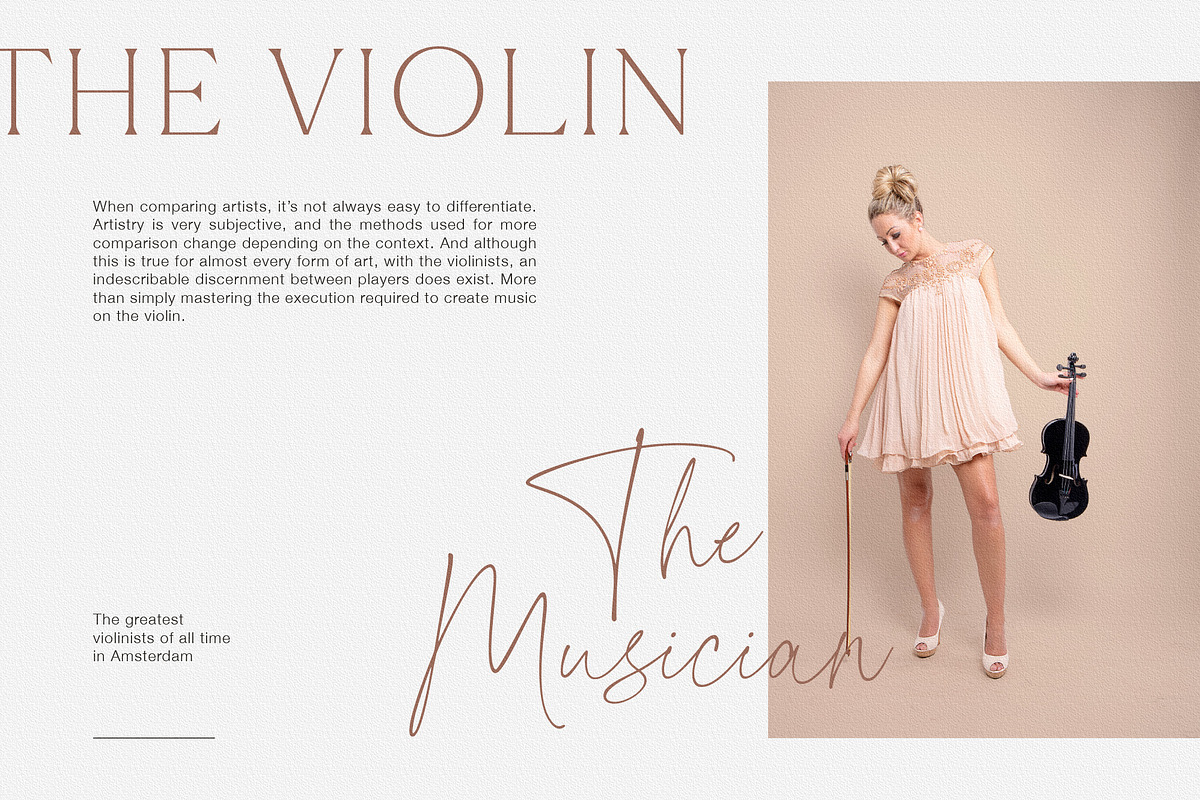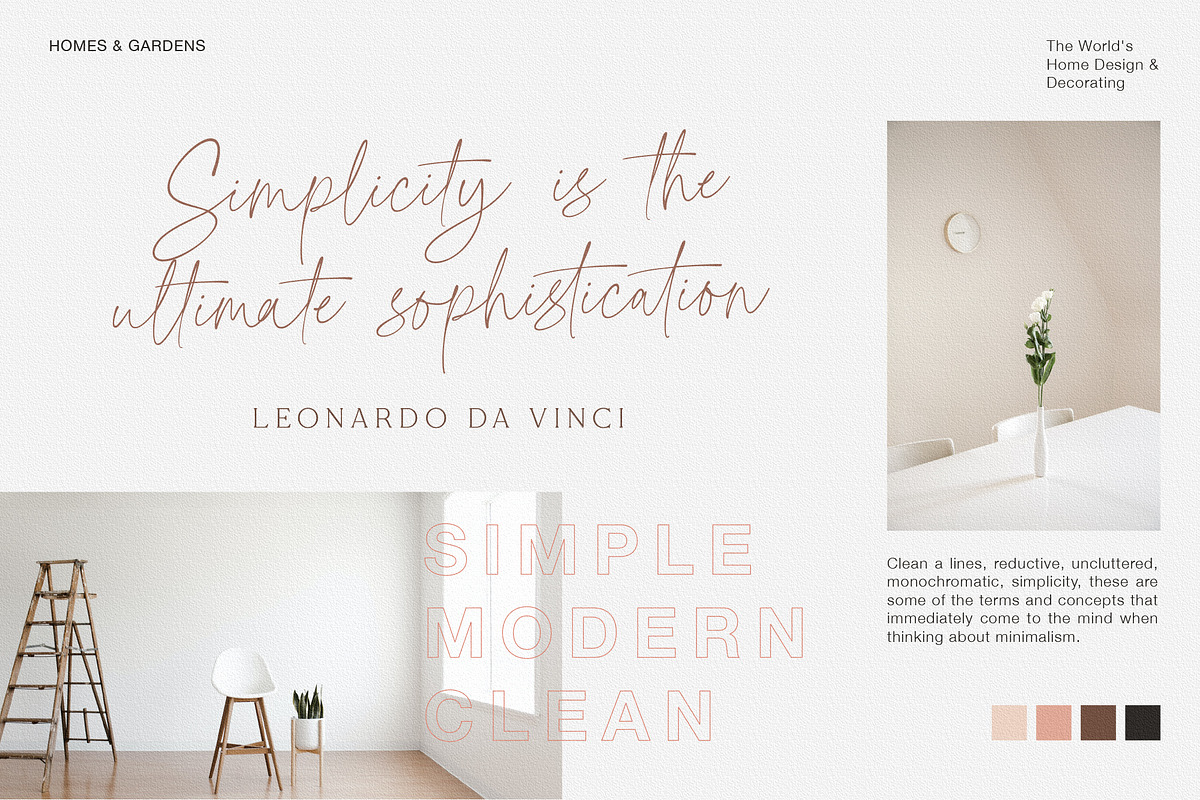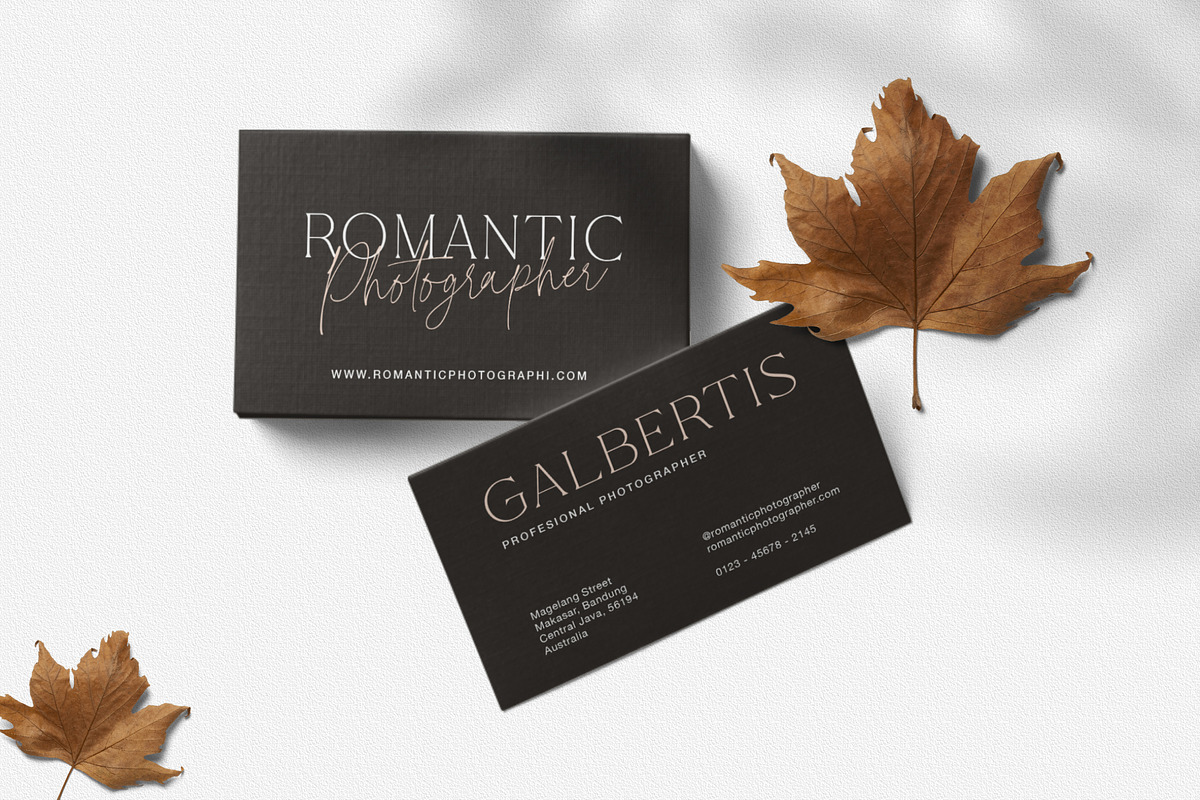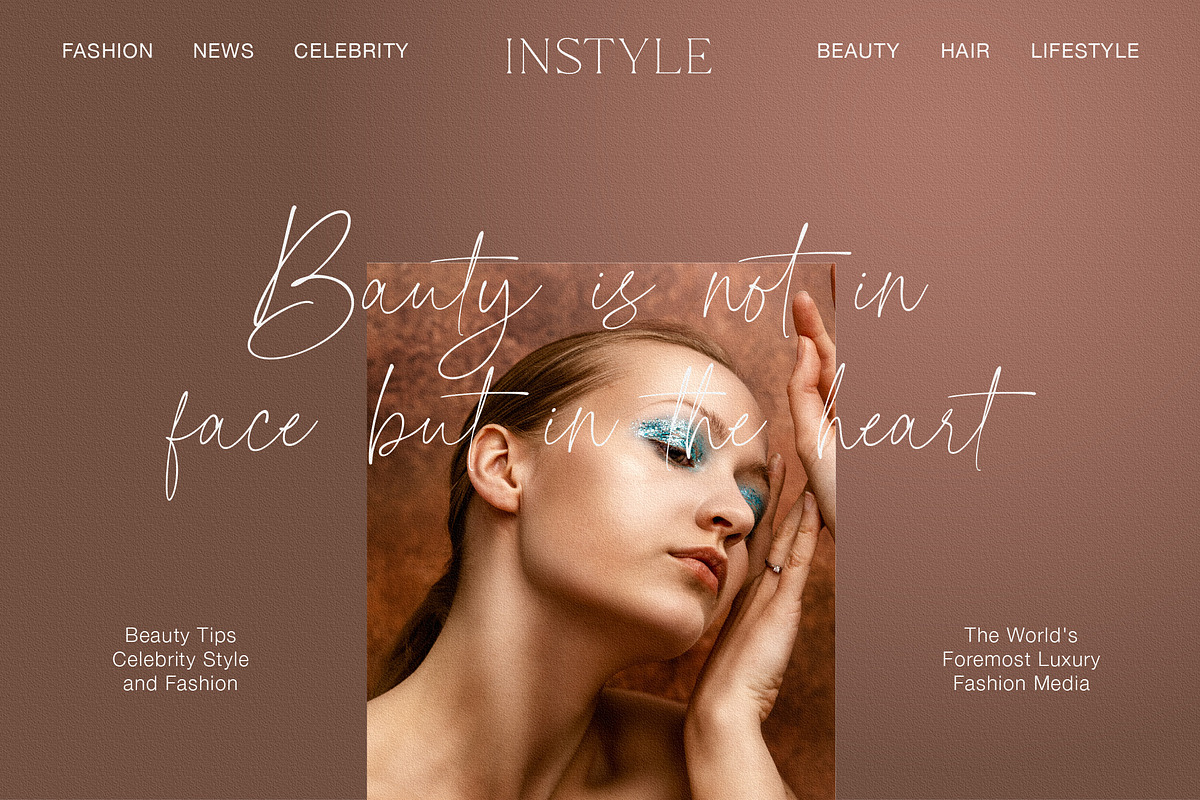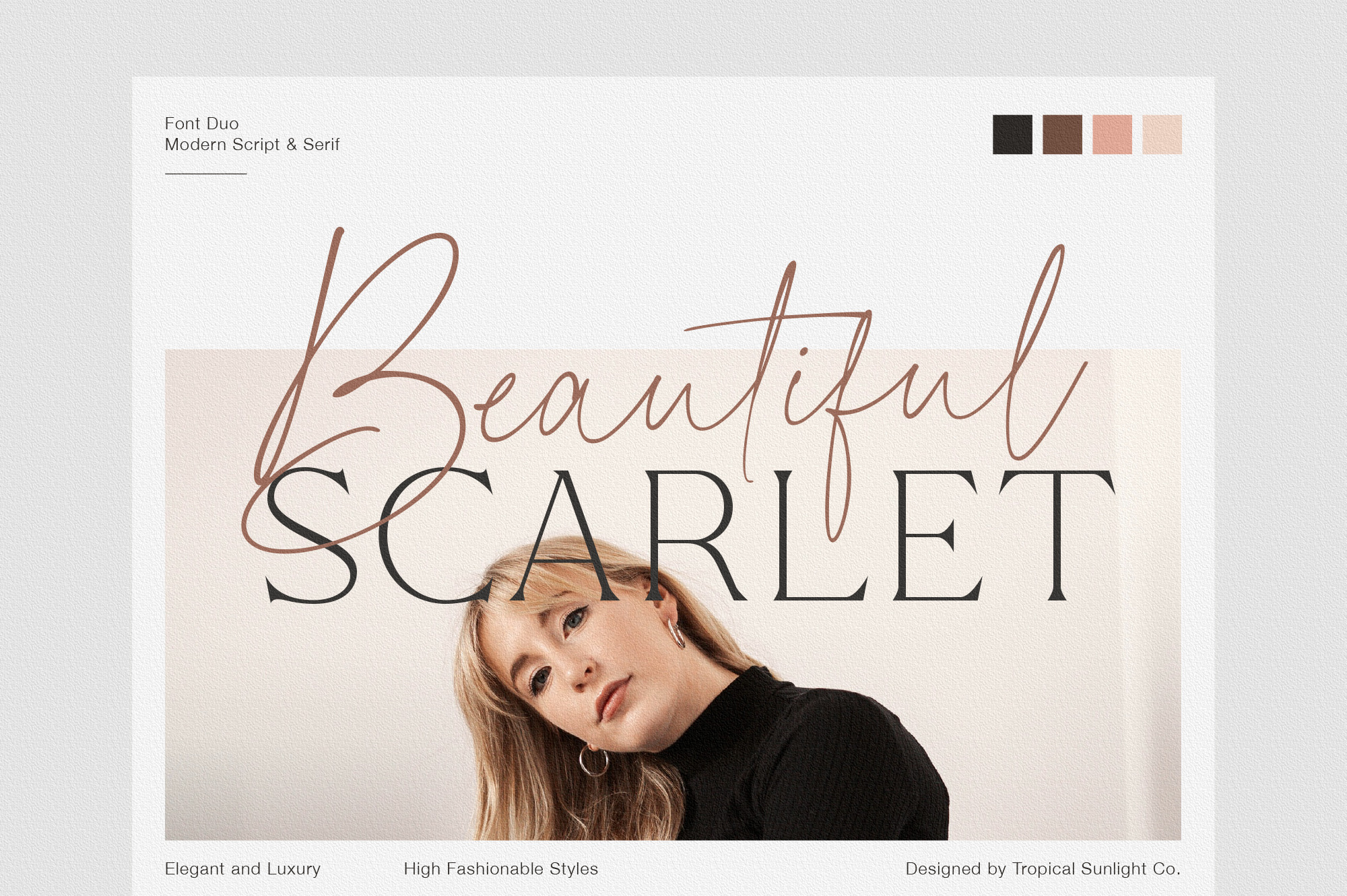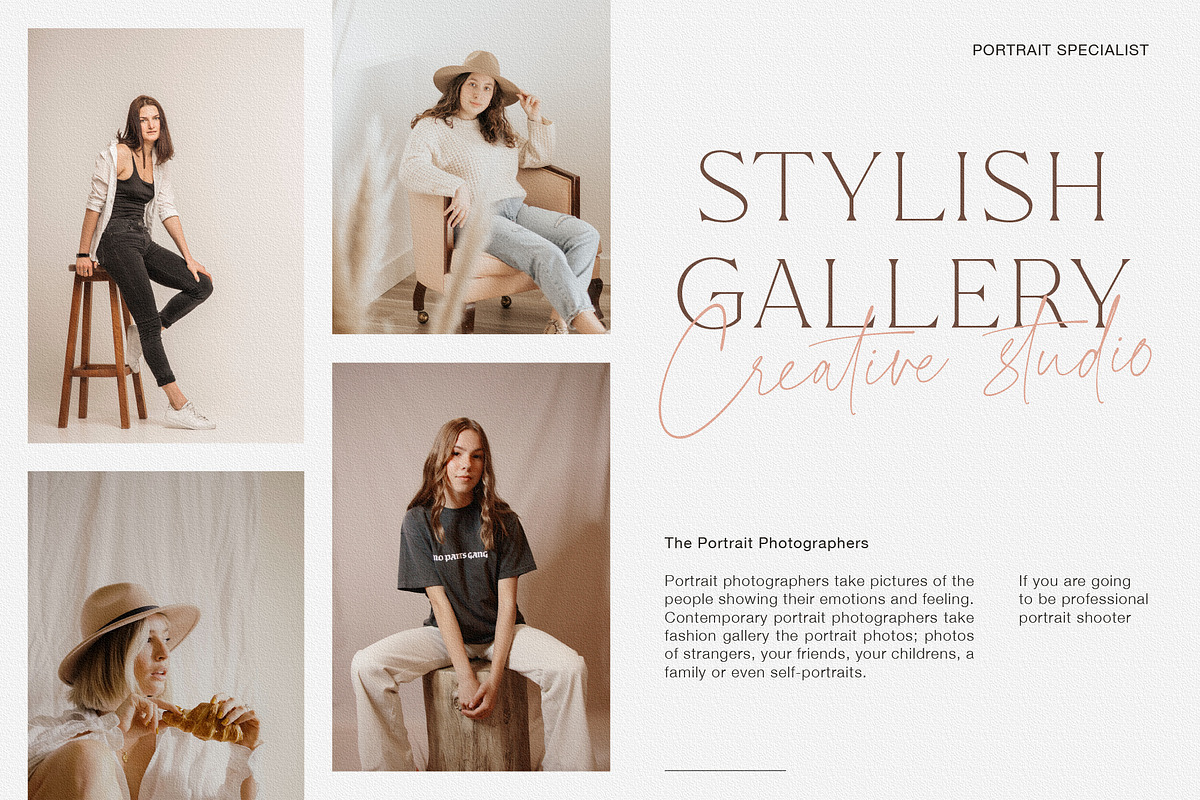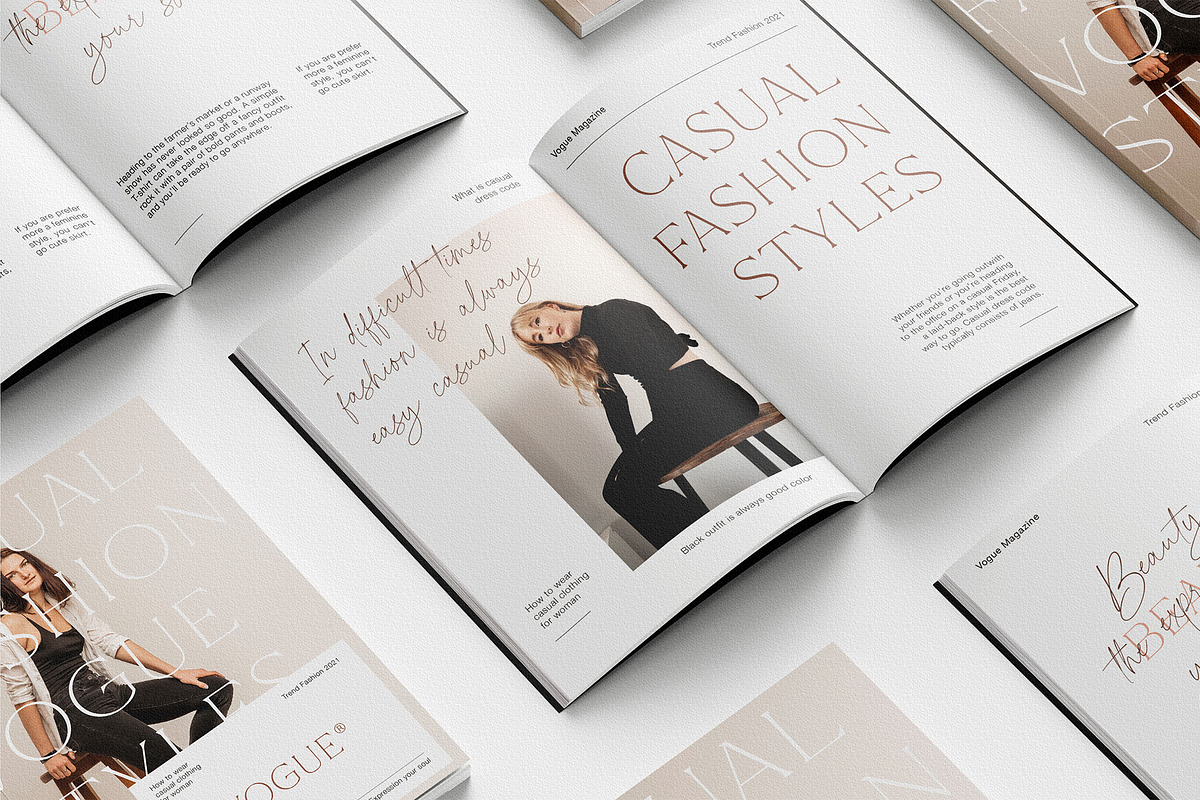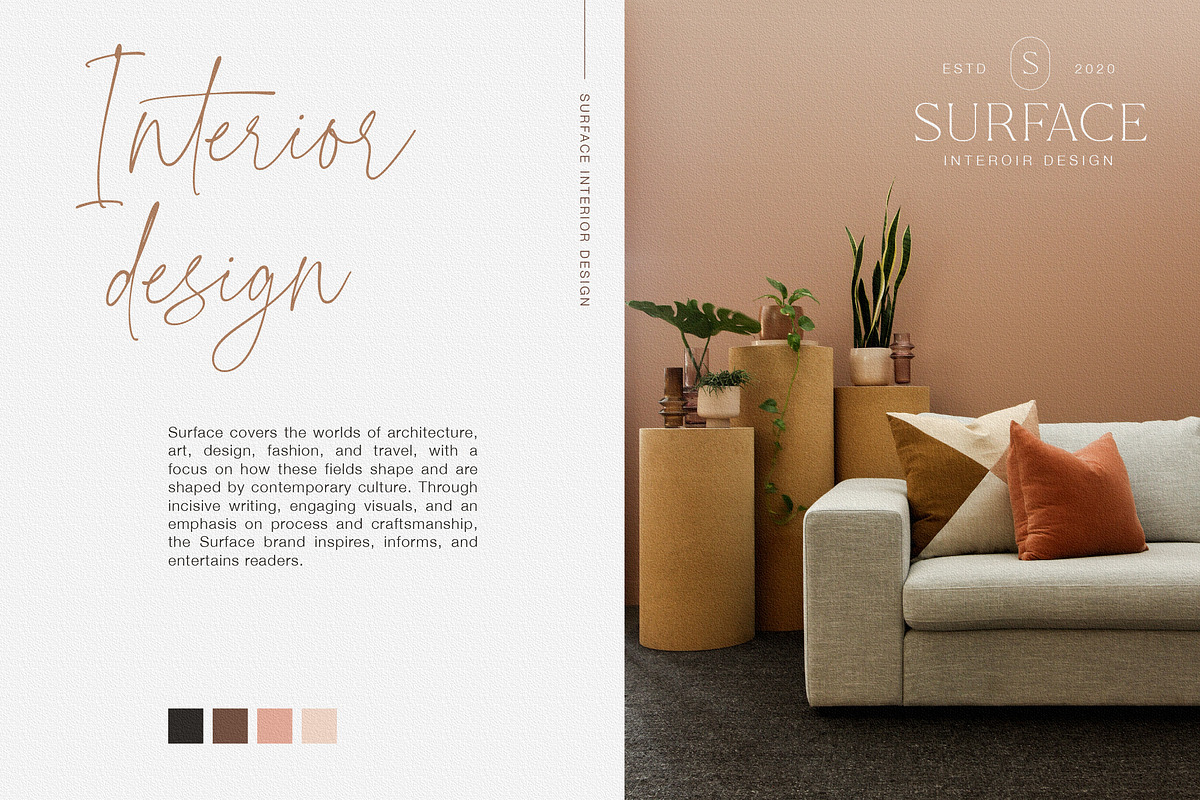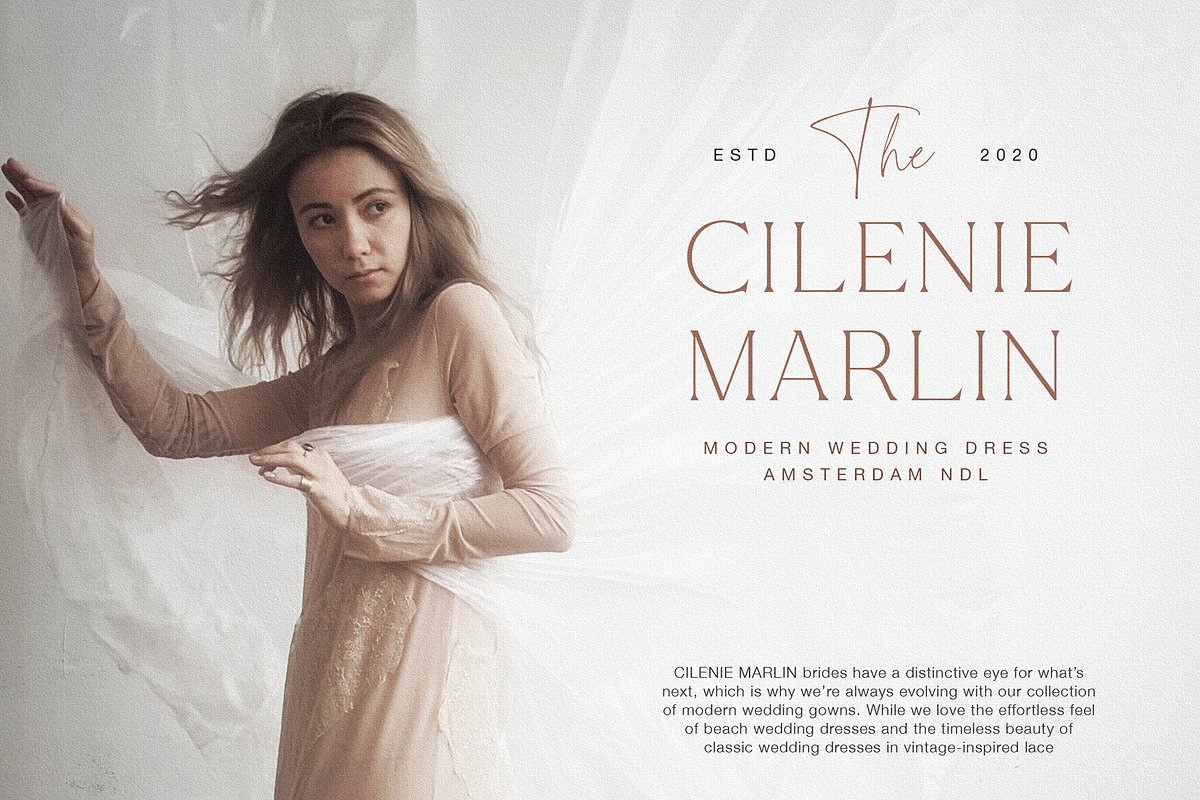
Beautiful Scarlet - Modern Font Duo
The font is called "Beautiful Scarlet", it is font duo with fashionable themes. The font comes with two pairing typefaces (script and serif). Script font contains 2 set alternates and some ligatures. The Beautiful Scarlet matches apply in some designs such as the logotype, quotes, wedding invitation, business card, packaging, branding, and more custom design.
- Uppercase, lowercase, numeral, symbol and punctuation, alternate (ss01-ss02), ligature in script font
- All-caps, numeral, symbol and punctuation in serif font